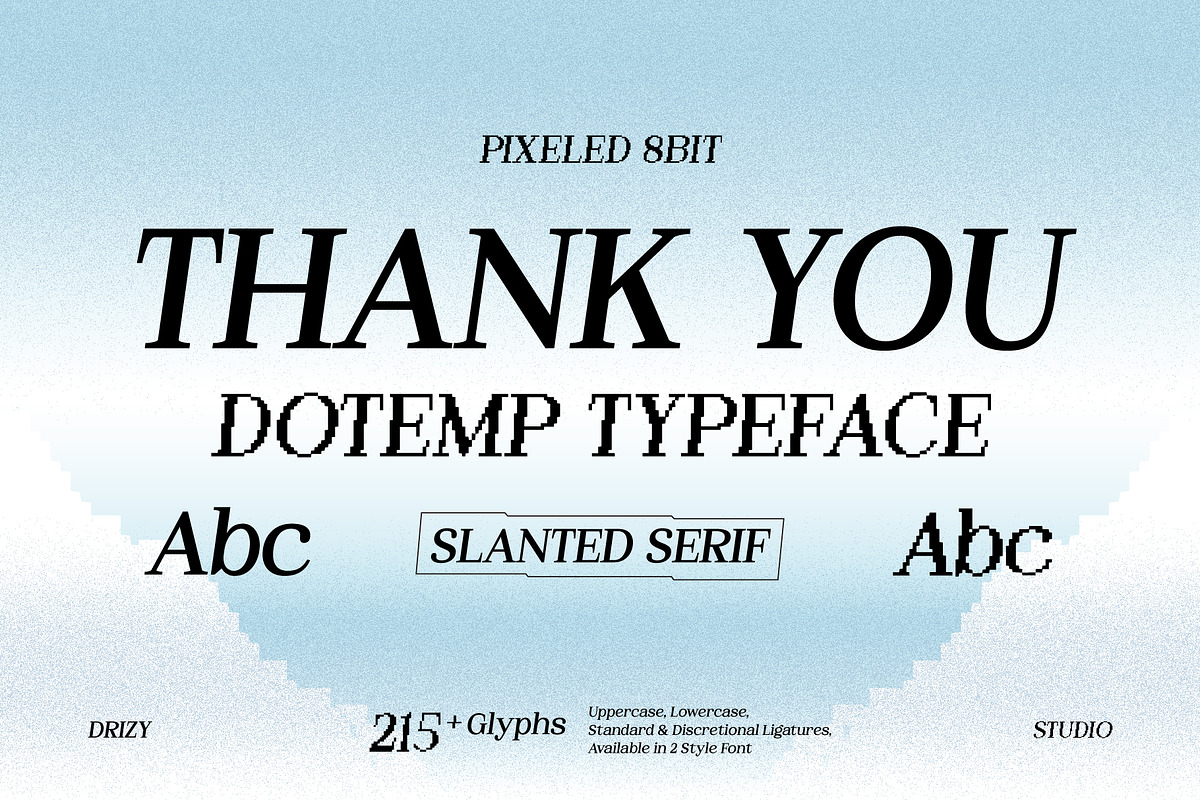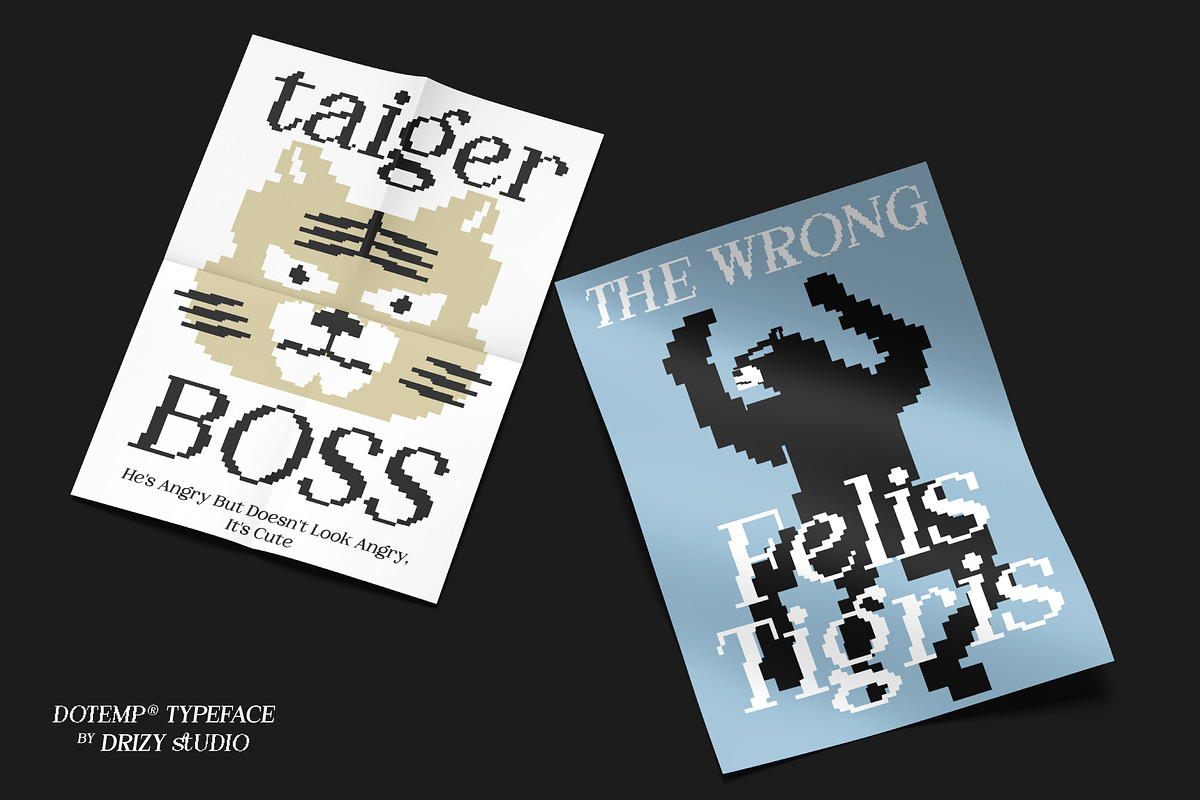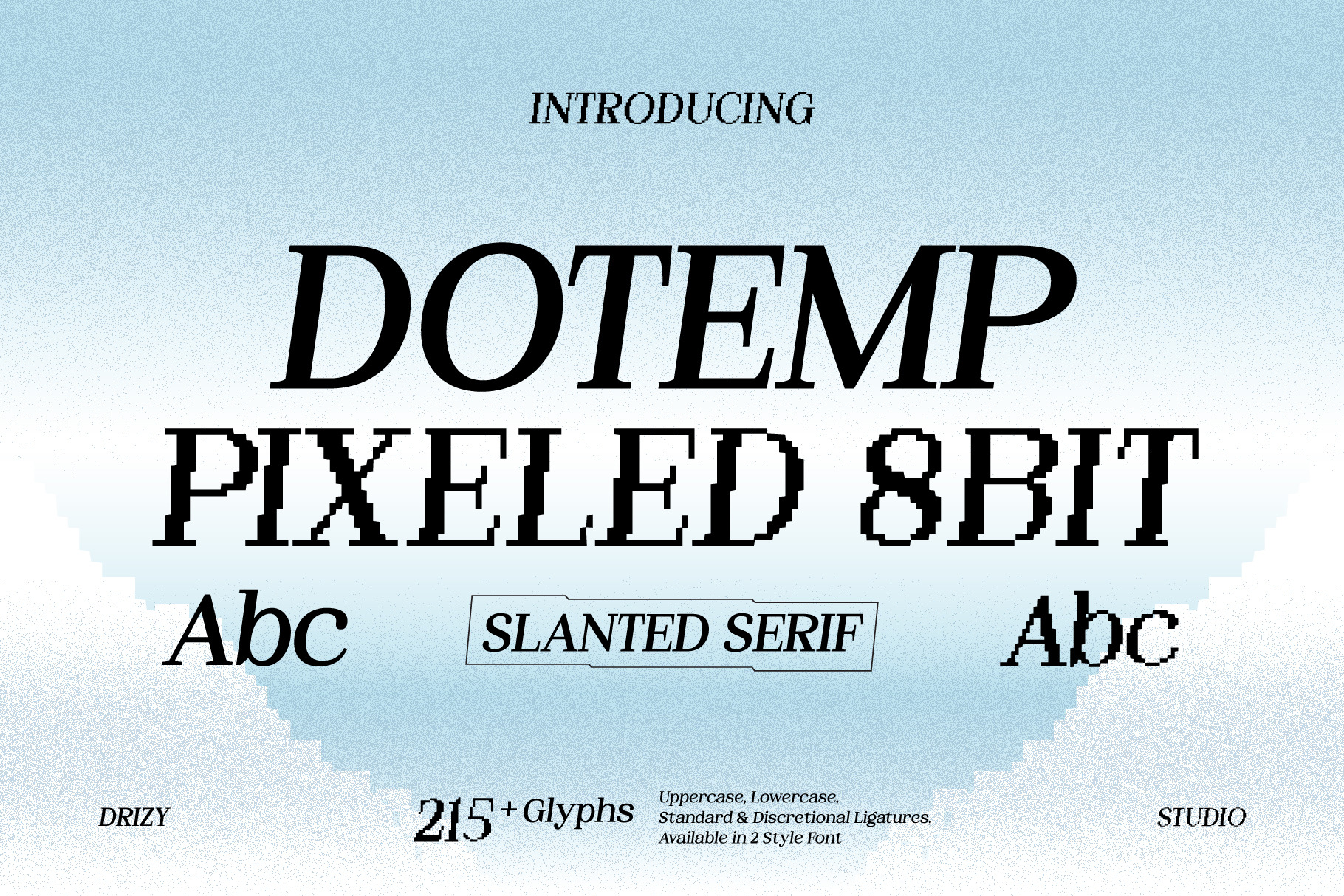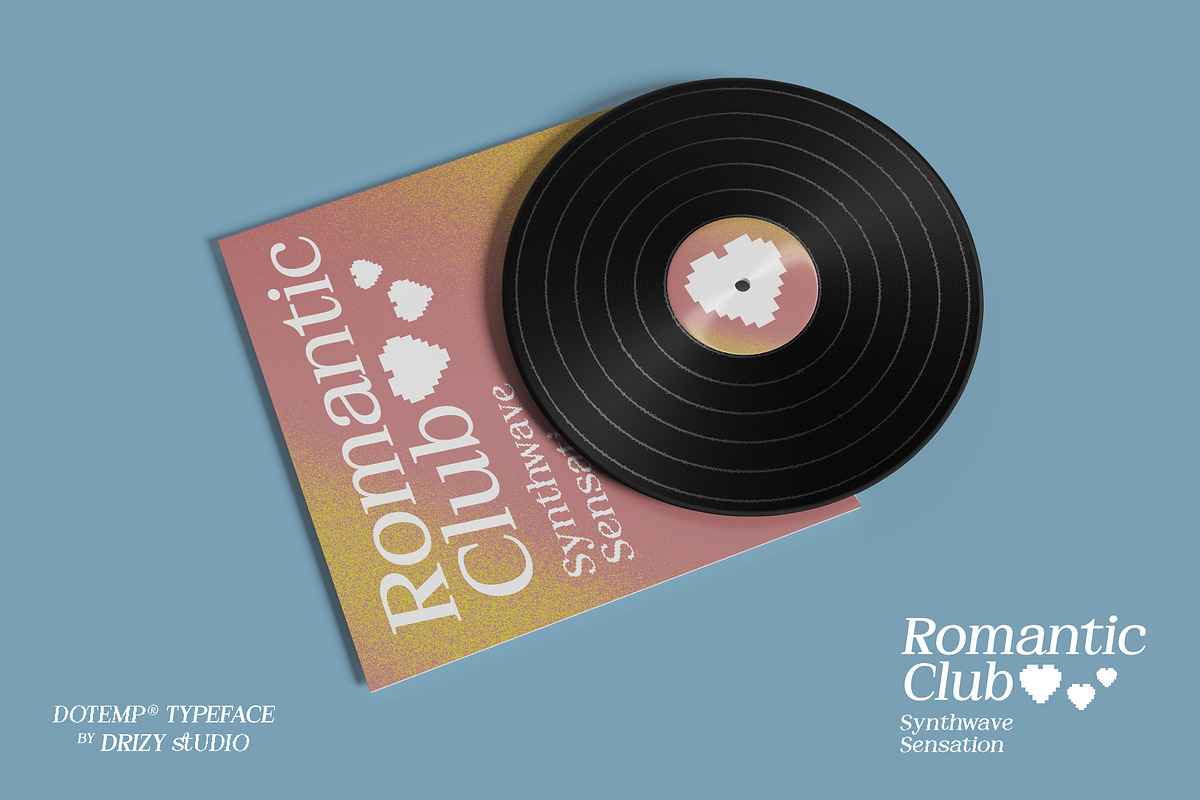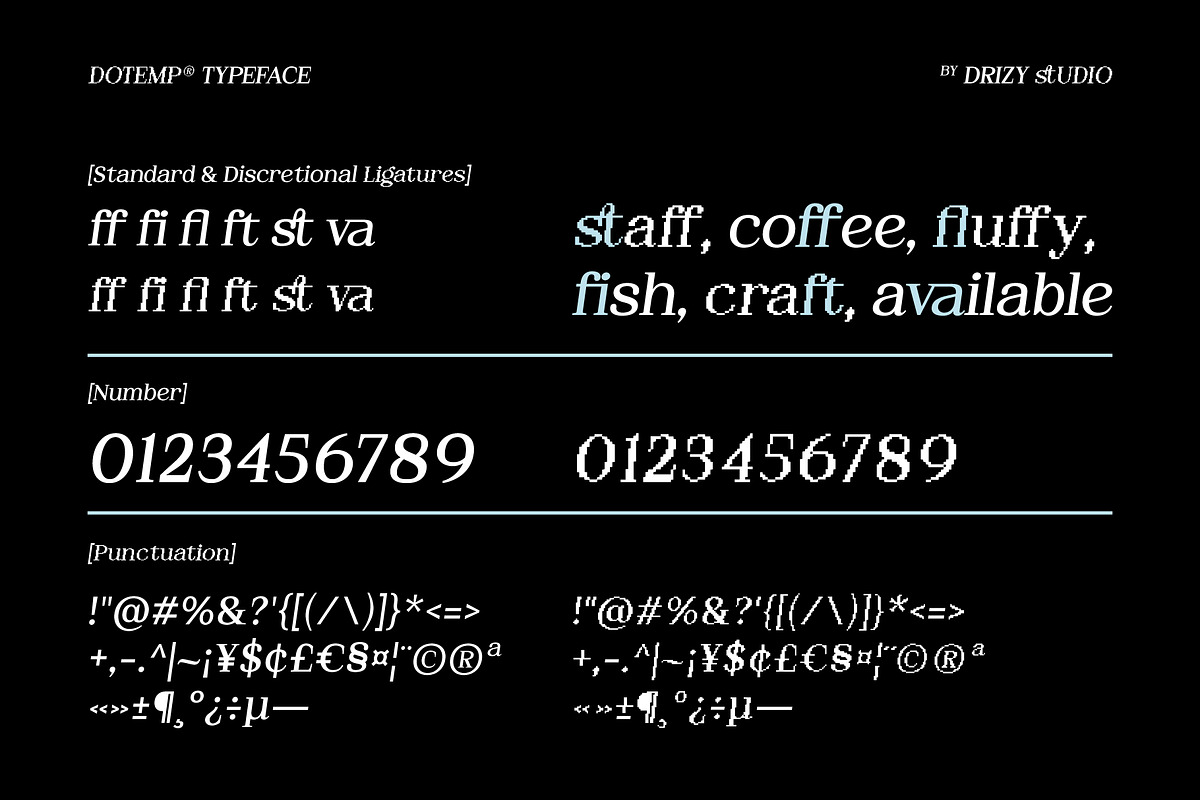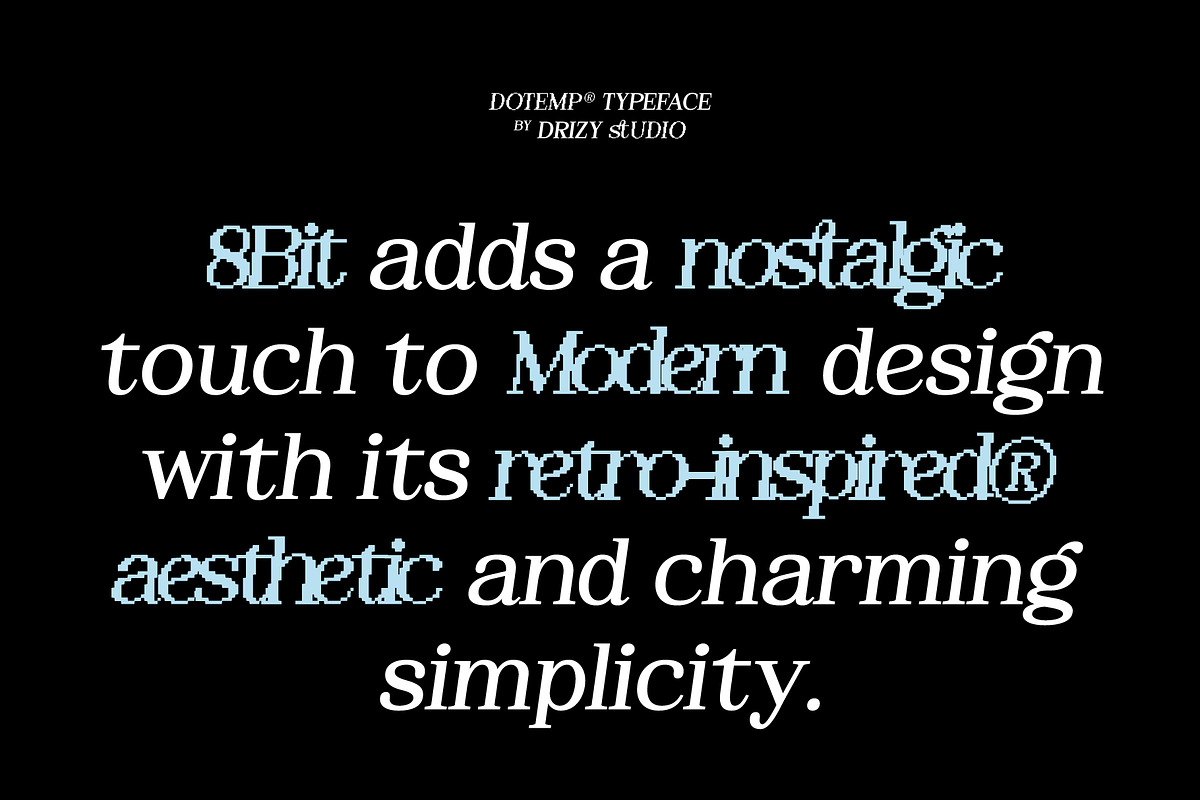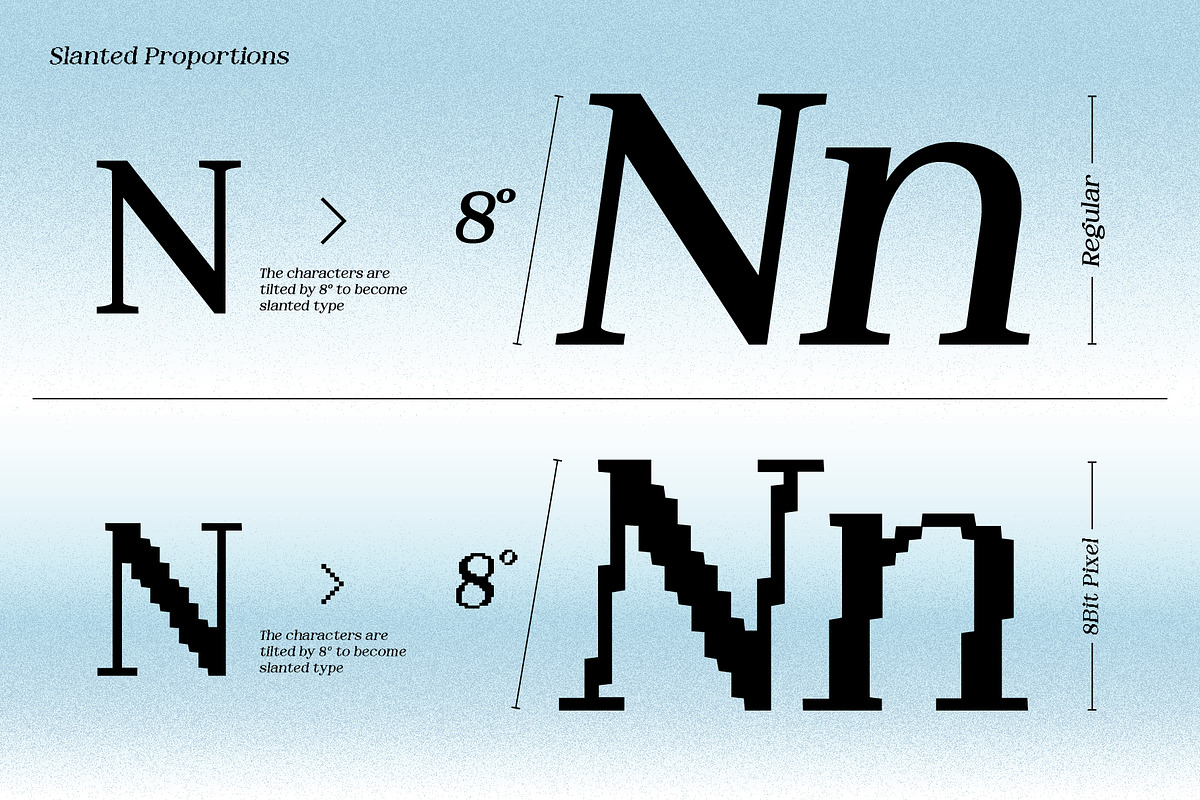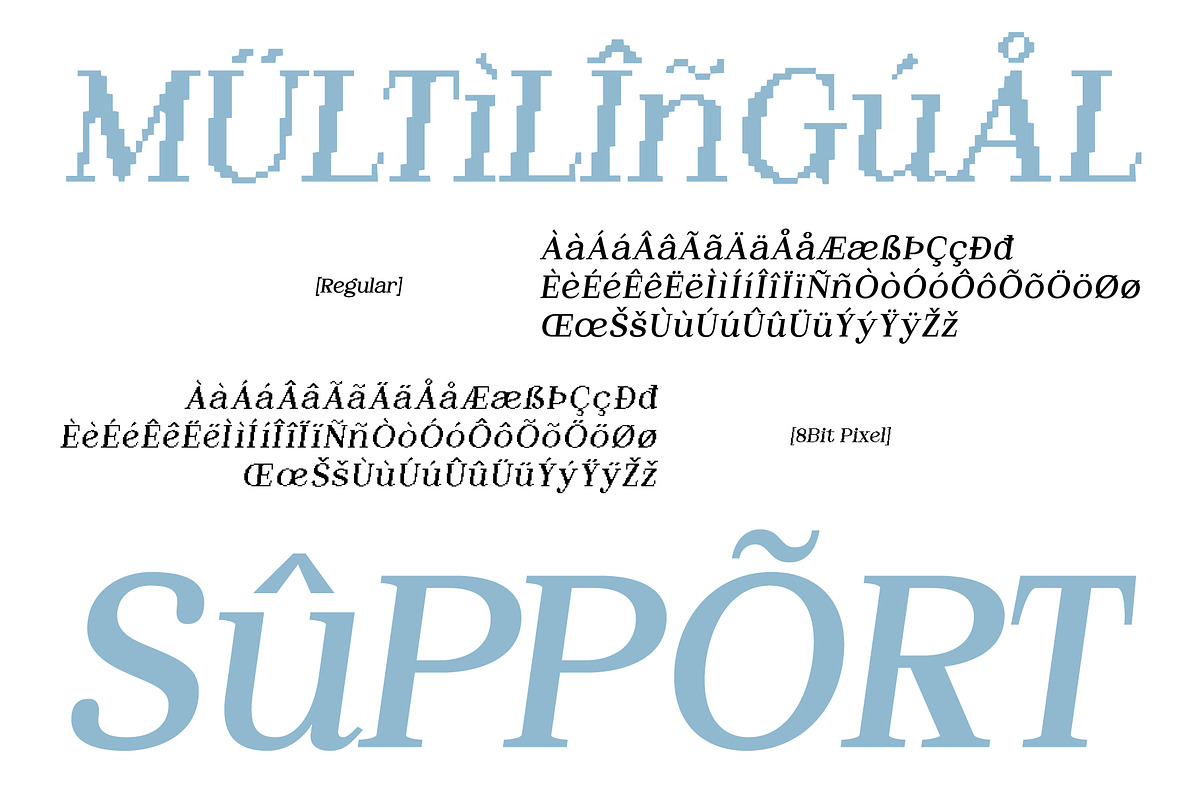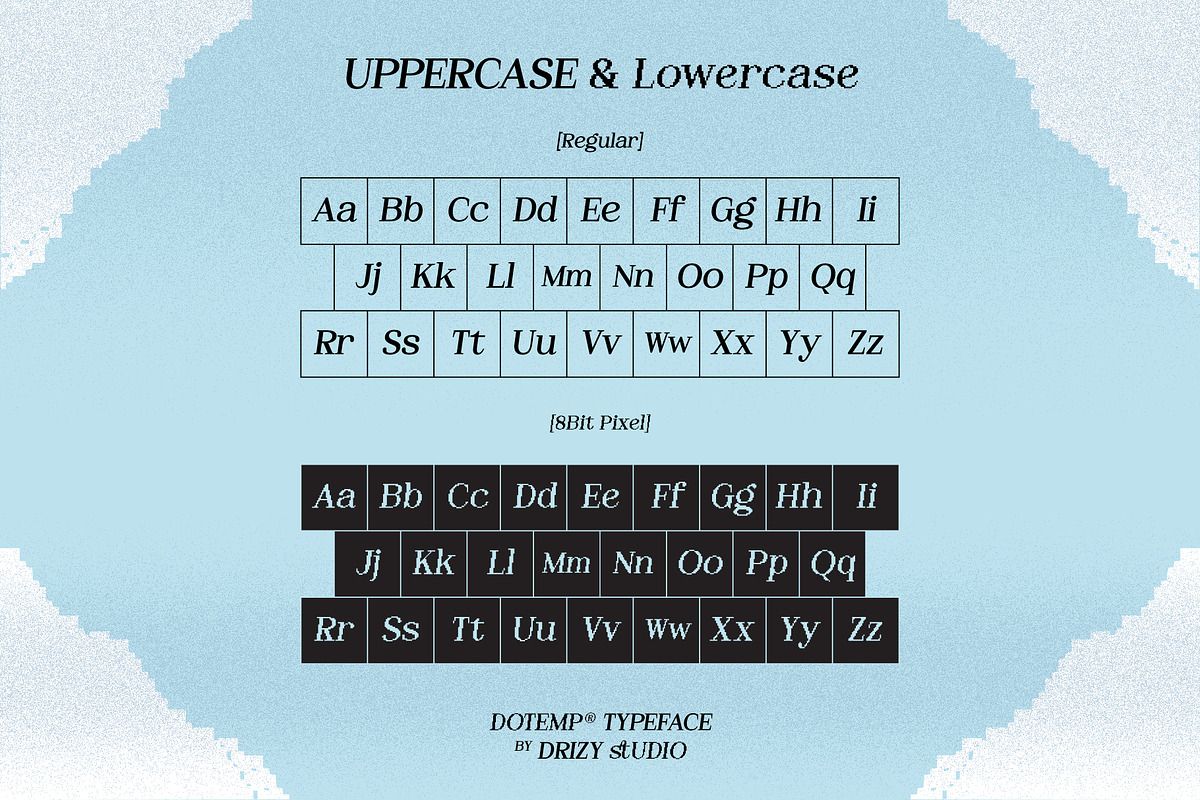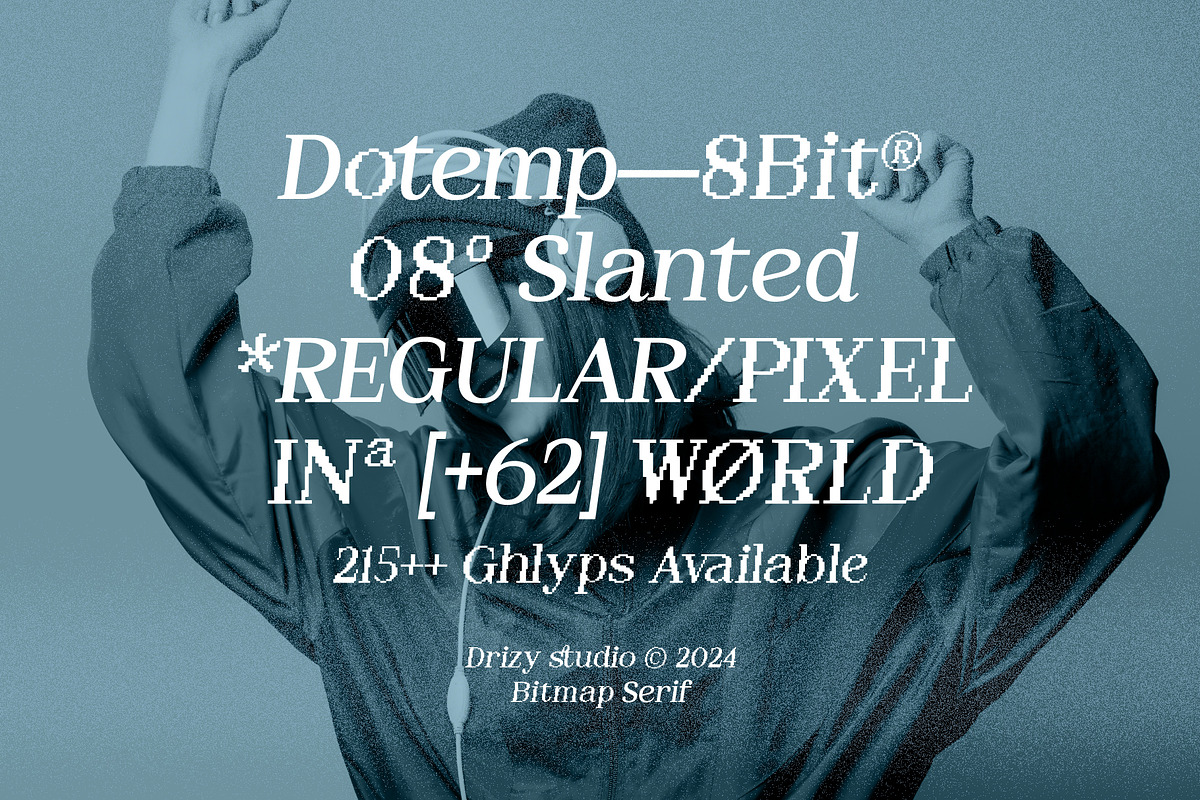
Dotemp - 8Bit Pixel Slanted Font
Dotemp is a charming and distinctive 8-bit pixel slanted font that harks back to the golden era of retro gaming. Reminiscent of classic arcade games and old-school computer interfaces, Dotemp captures the essence of nostalgia with its blocky, pixelated characters and unique slanted design. Each letter and symbol is crafted with precision, featuring sharp edges and a distinct slant that adds a Dreamy Aesthetic to any text.
Dotemp features: Uppercase & Lowercase Variable: Regular & 8bit Pixel Punctuation & Numbers Multilingual
Elevate and explore the design possibilities with this slanted font!